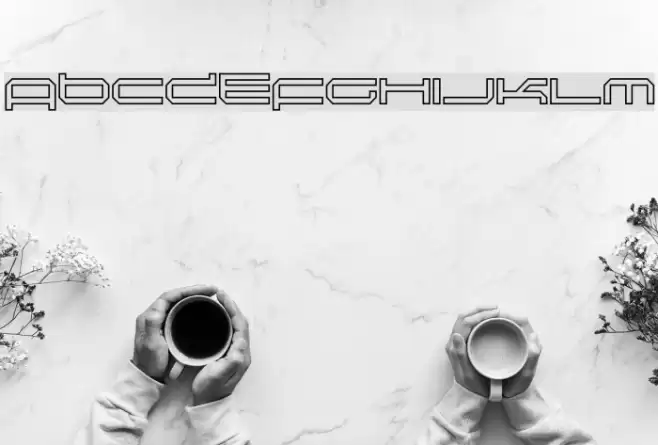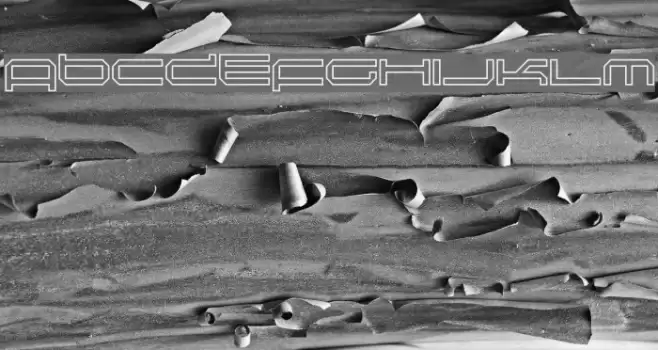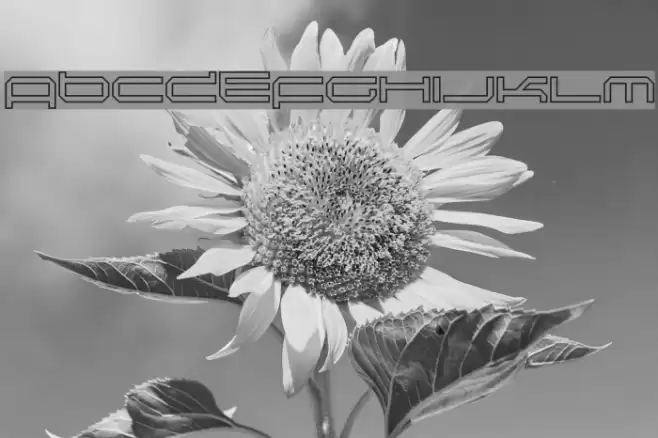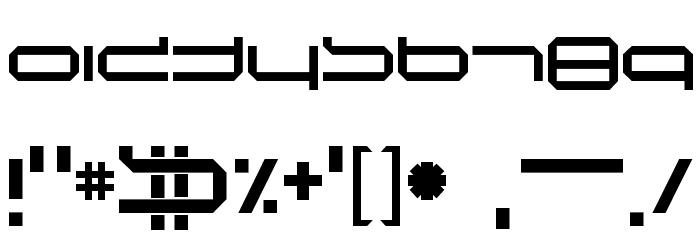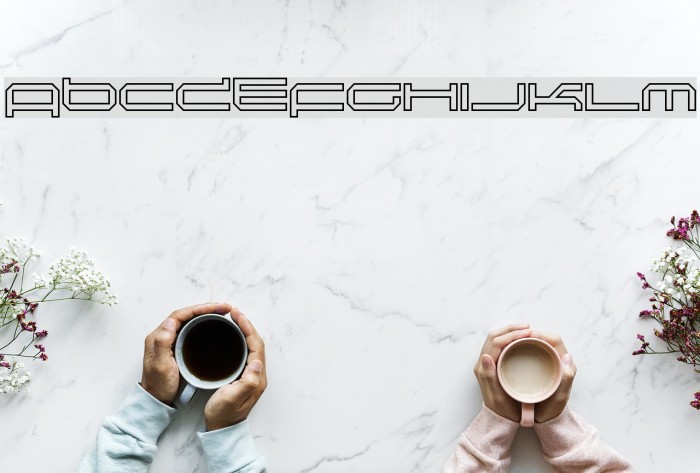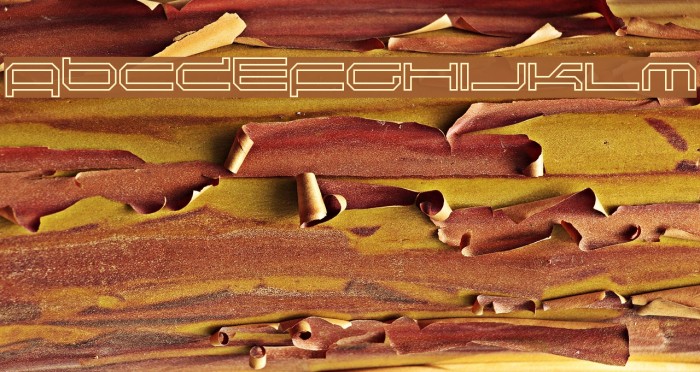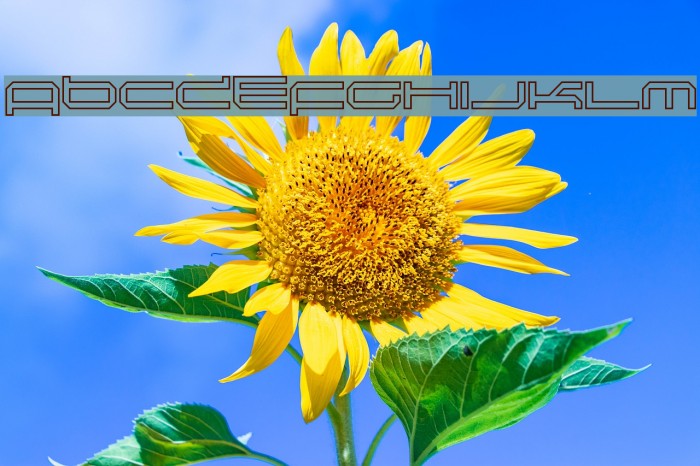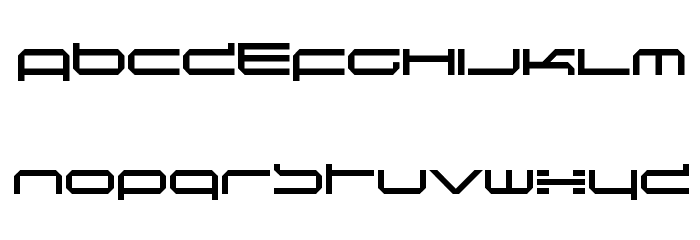
Induction Font
Induction Description
This font features a futuristic and geometric design, characterized by its angular and modular letterforms. The uppercase and lowercase letters share a consistent structure, with sharp edges and a distinct, mechanical appearance. The numerals and special characters maintain this cohesive style, adding to the font's overall modern and technical feel. The font's design is both bold and striking, making it suitable for projects that require a strong visual impact. Its unique style is ideal for technology-related themes, sci-fi projects, or branding that seeks to convey innovation and modernity.
A futuristic, geometric font with angular, modular letterforms from Decorative fonts.
- Proposed Projects: Ideal for technology branding, sci-fi themes, and innovative design projects.